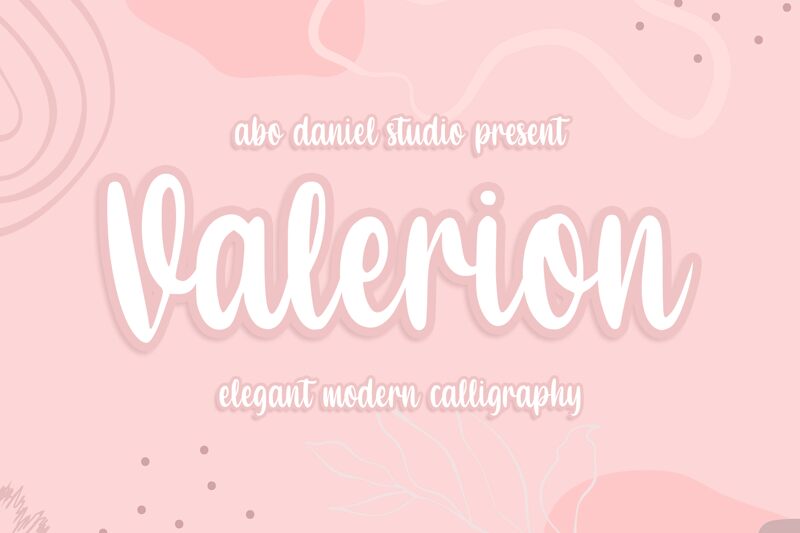
Valerion is an elegant modern calligraphy font designed by Panggah Laksono of Abo Daniel Studio. With its condensed letterforms, Valerion is the perfect choice for creative projects that need a luxurious and unique touch. From logos to invitations and stationery, this stylish font will elevate any design with its beautiful cursive strokes. Valerion is also ideal for branding, packaging, blogs and web designs.